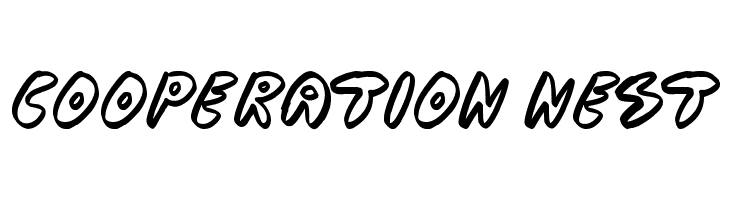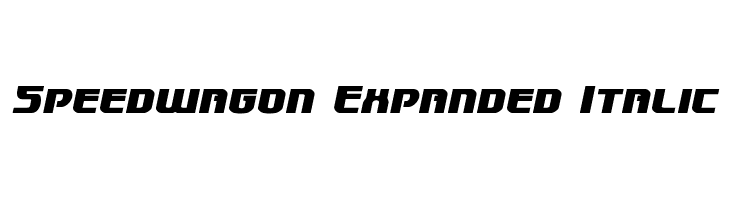
A bold, expanded, and italic font with a modern and dynamic style.
A dynamic, handwritten script font with an italic slant and consistent stroke width.
A bold, semi-italic font with angular lines and a dynamic style.
A playful, hand-drawn font with bold, rounded characters and a whimsical style.
A decorative, rope-like font with a bold, geometric style.
A dot matrix style font with a modern, digital aesthetic.
A bold, rounded font with a strong, uniform presence.
A playful, whimsical serif font with curly serifs and a friendly appearance.